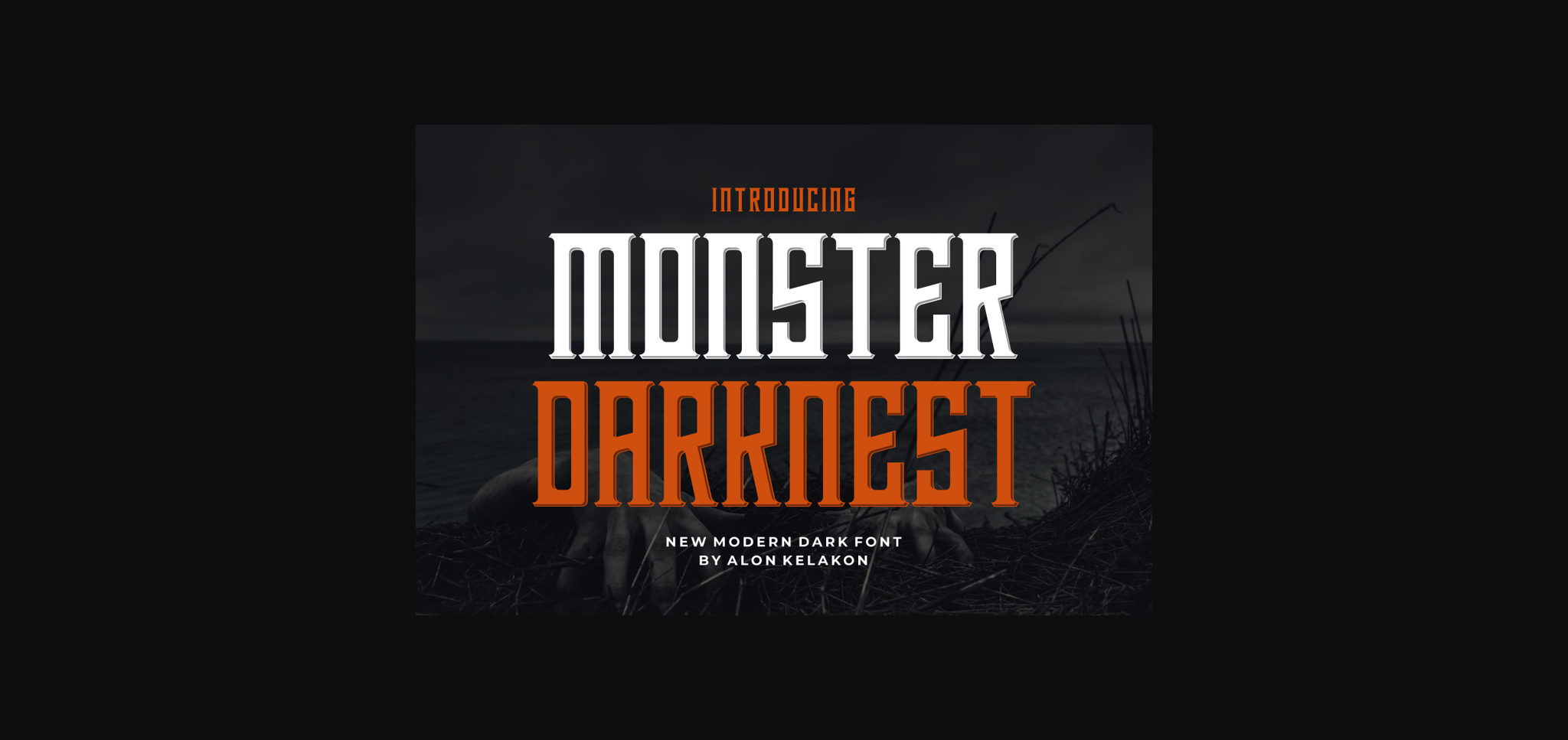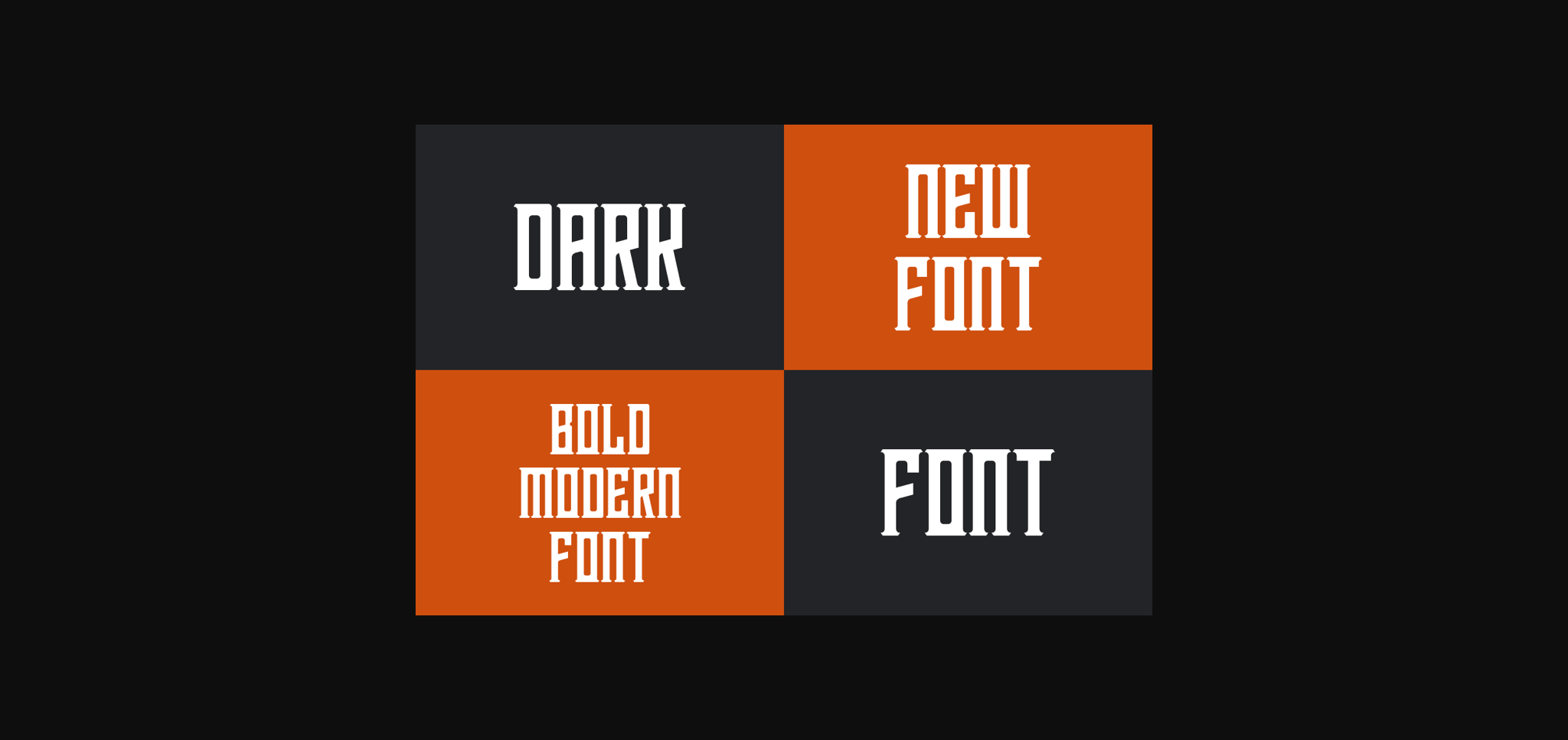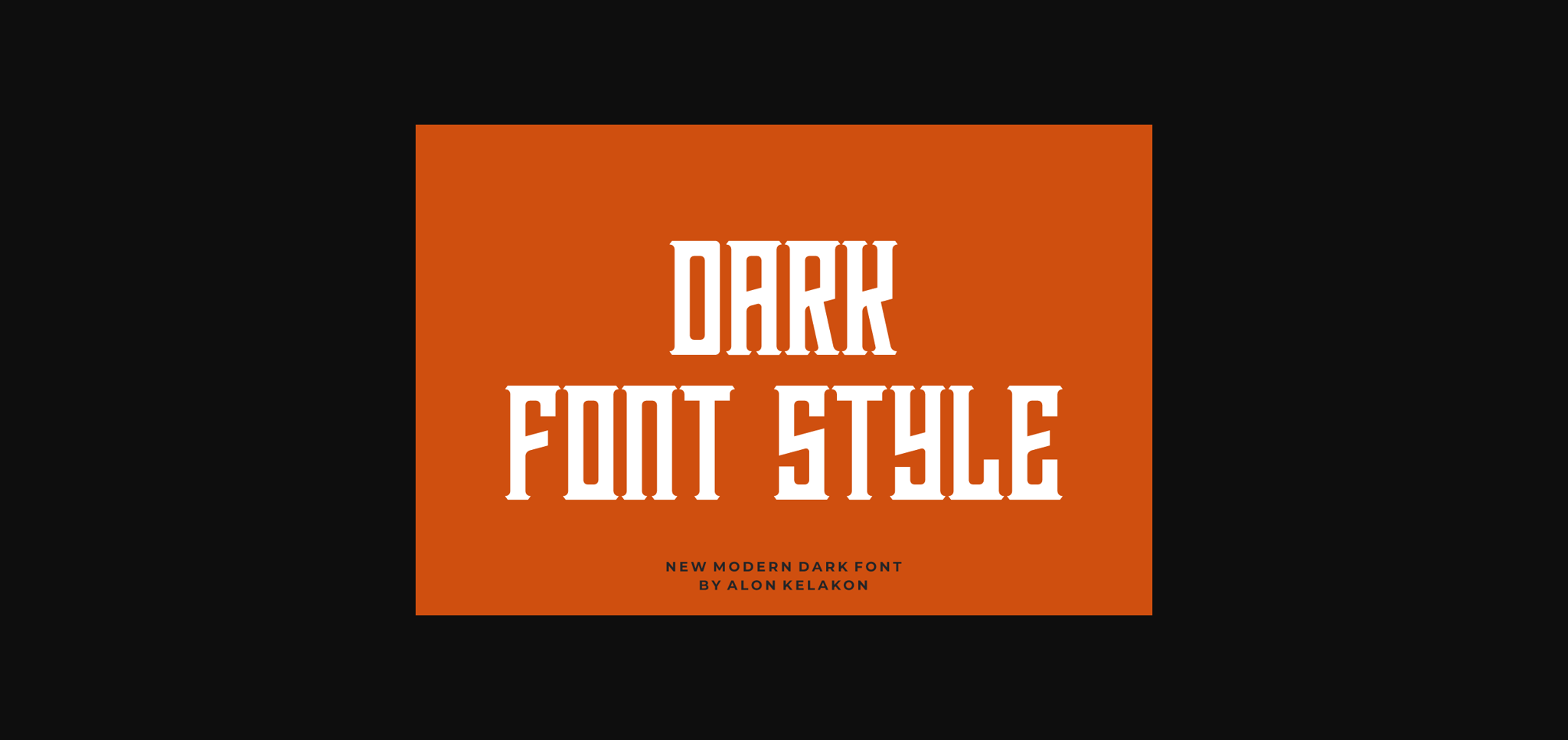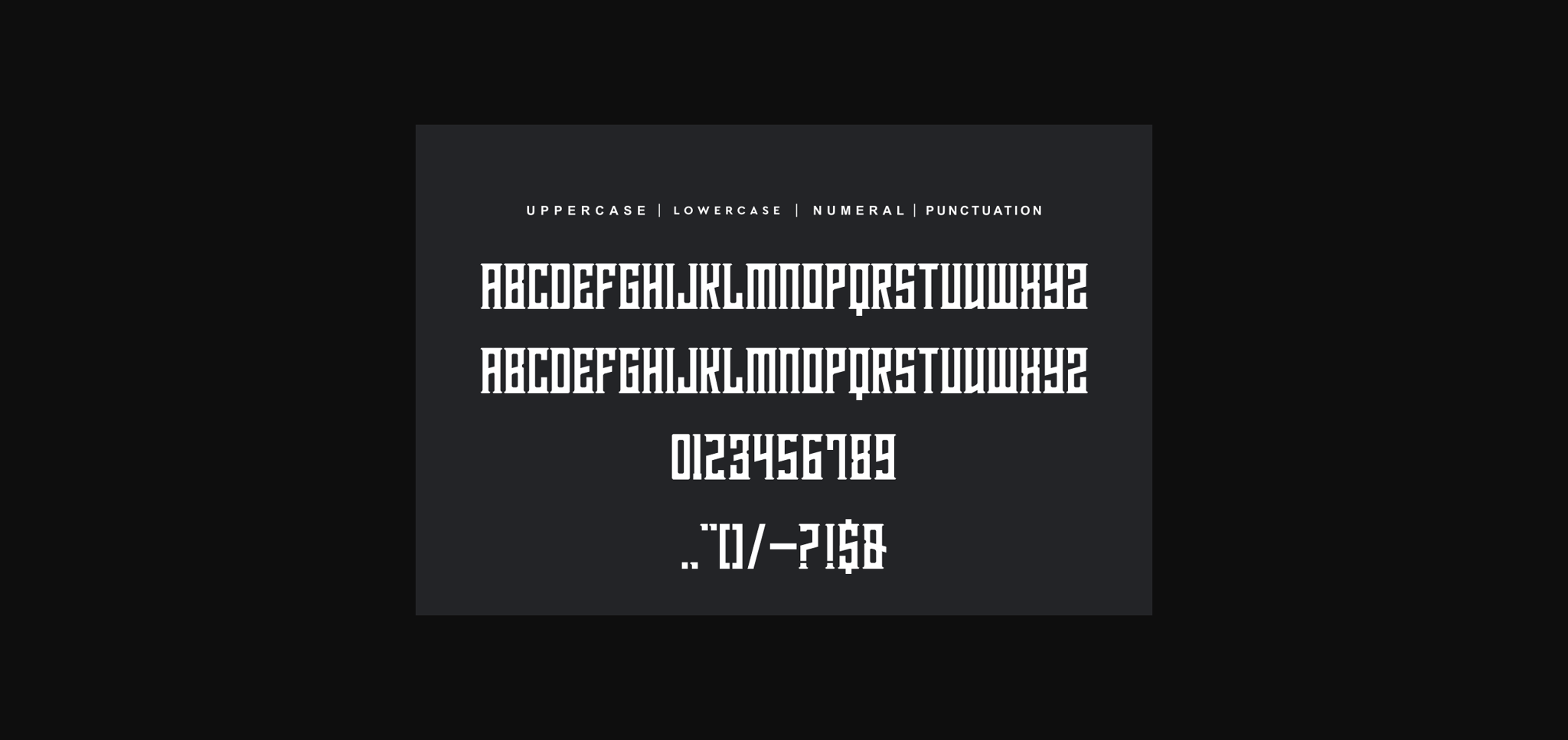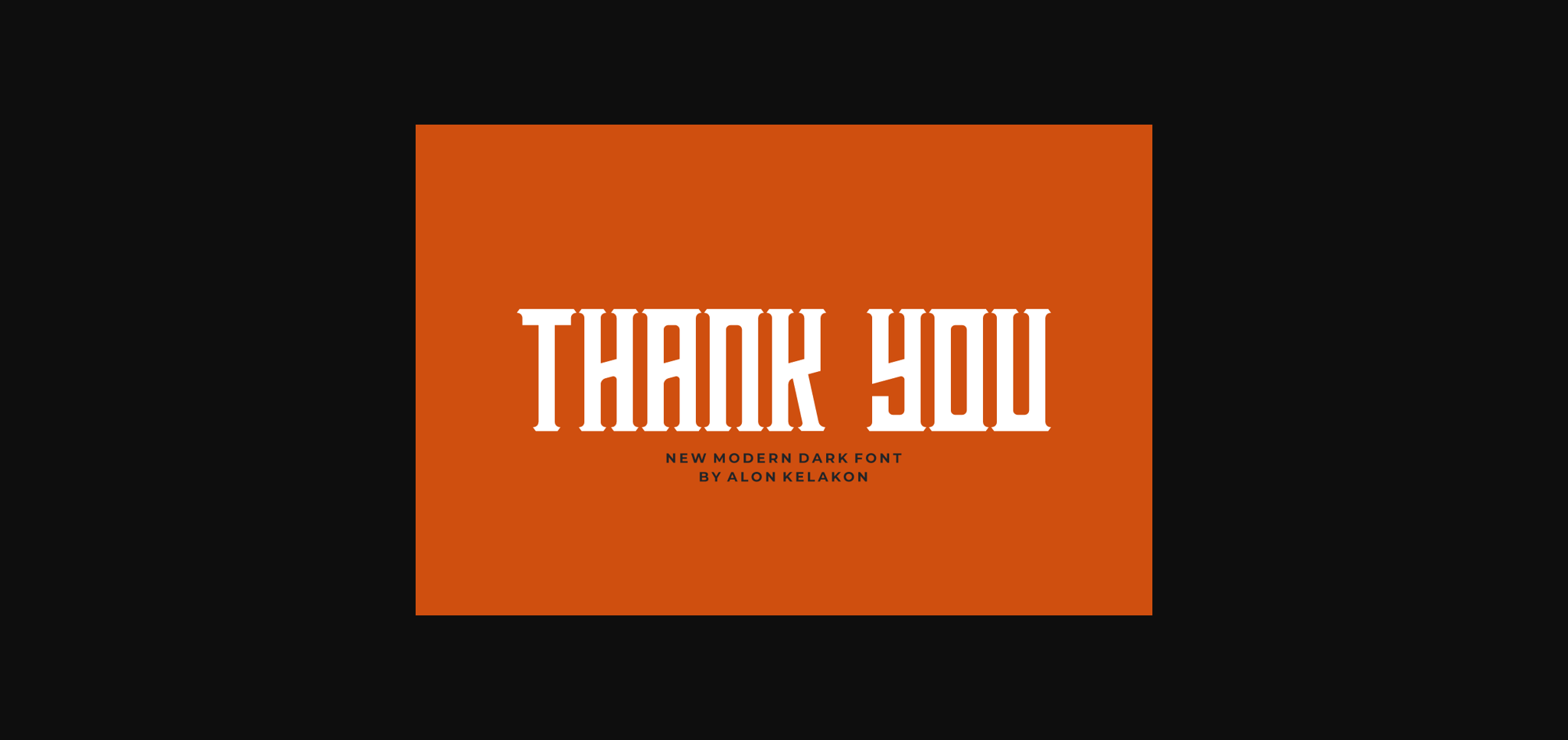
About Monster Darknest Font
Monster Darknest Font is unique. Ready to use for your design like labeling, clothing, movie scenes, poster, movie title, gigs, album covers, logos, and much more.